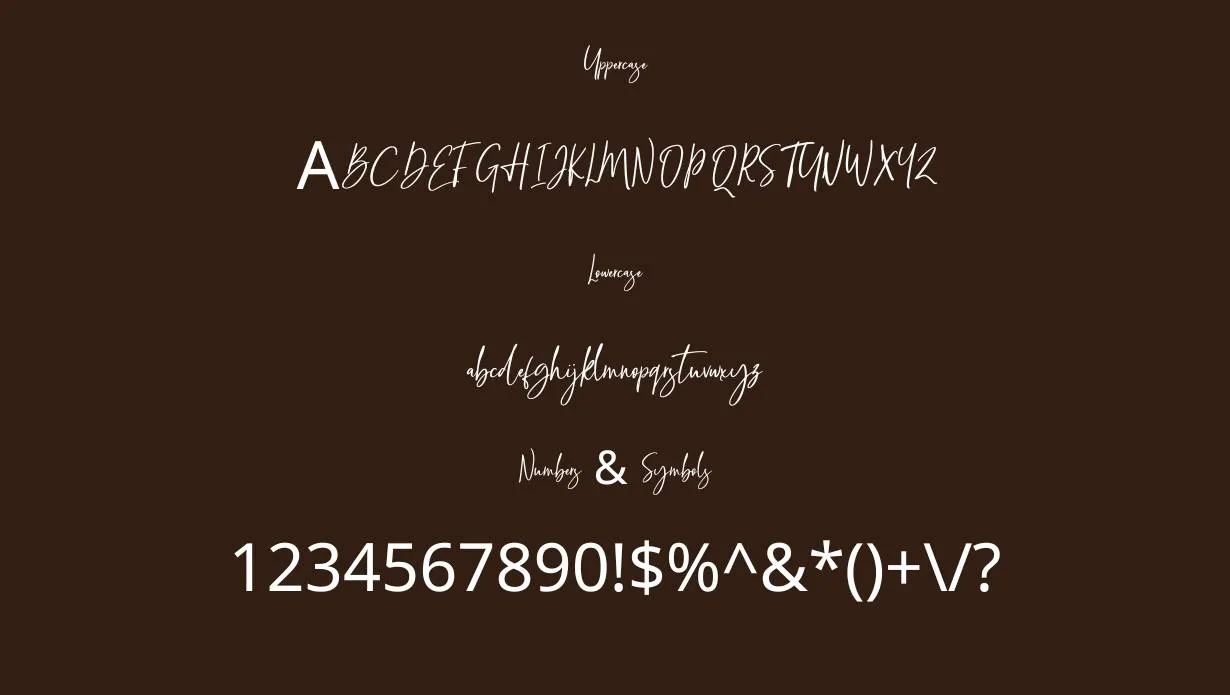
Light Olifia Font is a delicate and airy typeface that carries a sense of elegance and sophistication. Its slender lines and graceful curves make it an excellent choice for wedding invitations, fashion editorials, and chic branding.